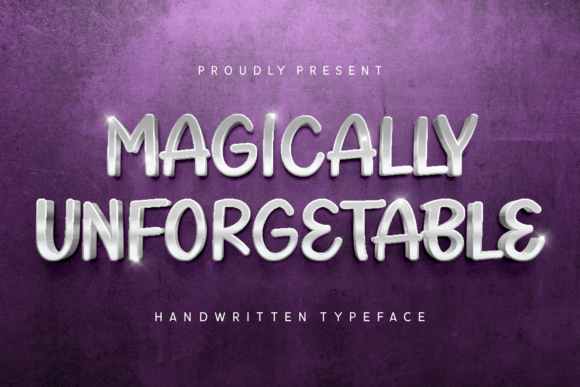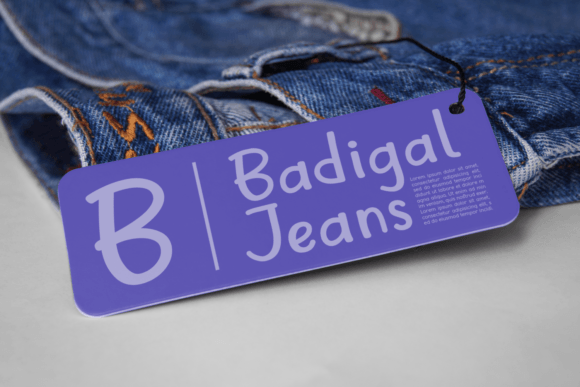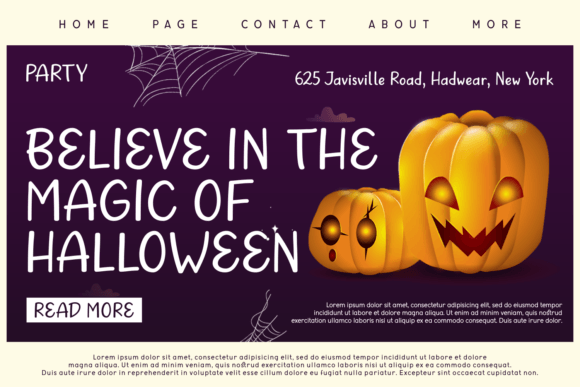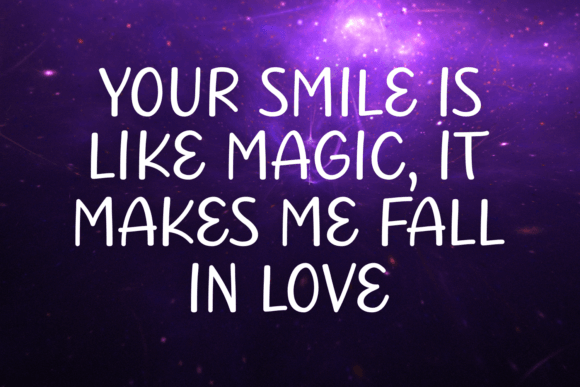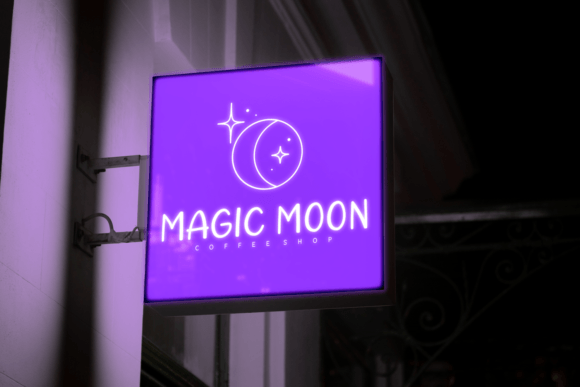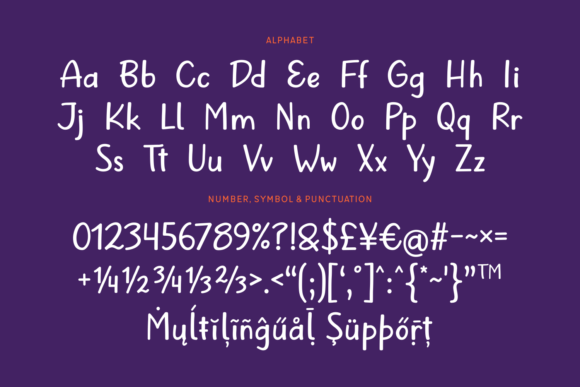
Magically Unforgettable Font
Magically Unforgettable Font: Charming Handwriting for Whimsical Designs
“Magically Unforgettable” is a delightful handwritten font that brings a cute and endearing quality to your designs. Its simple yet charming characters make it perfect for various creative projects.
Key Features of Magically Unforgettable Font
• Cute Style: Adds a whimsical touch to your designs.
• Versatile Use: Suitable for many projects, from greeting cards to branding materials.
• Authentic Look: Creates a warm and personal feel in your typography.
Greeting Cards and Invitations
Magically Unforgettable’s charming style is ideal for creating heartwarming cards and invitations that leave a lasting impression.
Use this font to design friendly and approachable logo designs for brands aiming for a playful image.
Poster and Print Design
The font’s cute nature makes it perfect for creating eye-catching posters and print materials that capture attention.
Why Choose Magically Unforgettable Font?
This font offers more than just cute letters. Here’s why it stands out:
• Enhances the overall mood of your projects with its charm
• Adds a sense of authenticity and warmth to your designs
• Versatile enough for both personal and professional projects
By using Magically Unforgettable, you open up new design possibilities. Its playful style works well in many contexts, from children’s book covers to social media graphics. The font’s whimsical nature can inspire creative ideas and help you approach projects from a fresh, fun perspective.
If you’re looking for a font that’s both cute and versatile, Magically Unforgettable is an excellent choice. It’s perfect for adding a touch of whimsy to your work, especially for projects that need a friendly, approachable feel.
Explore how Magically Unforgettable can transform your designs. From personal projects to branding materials, this font brings a delightful and memorable quality to your creations.